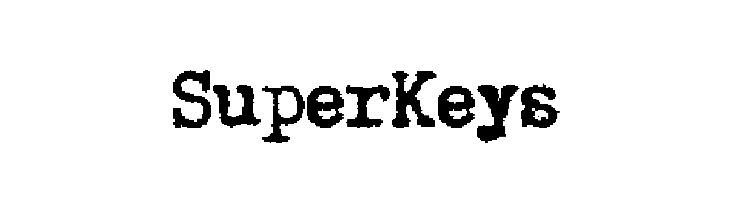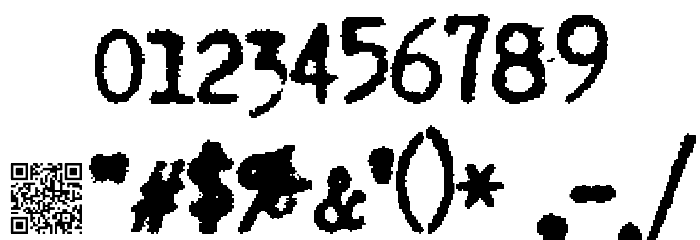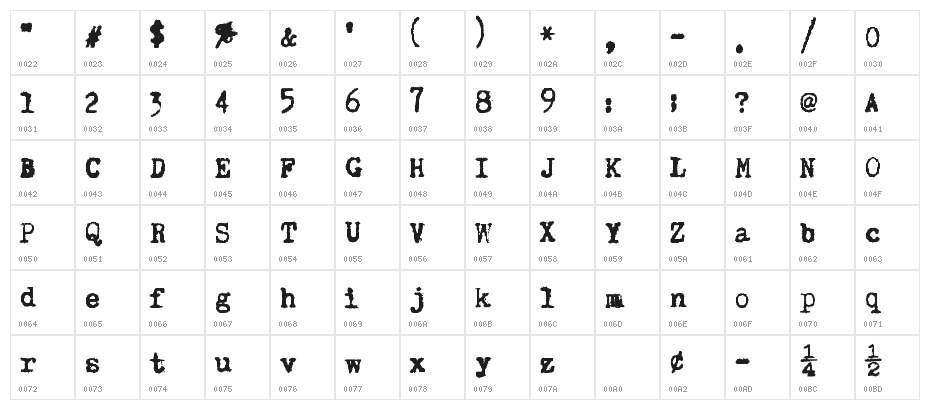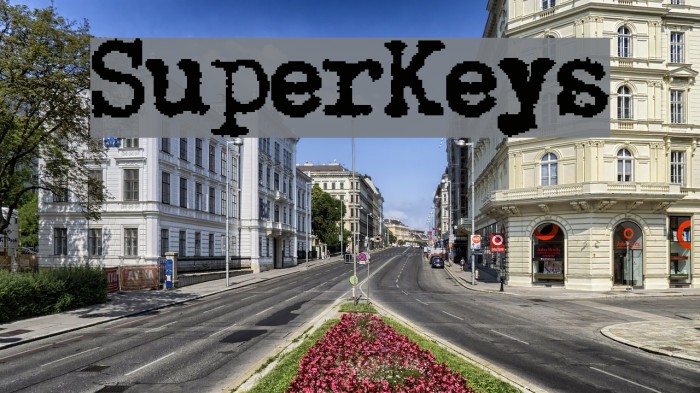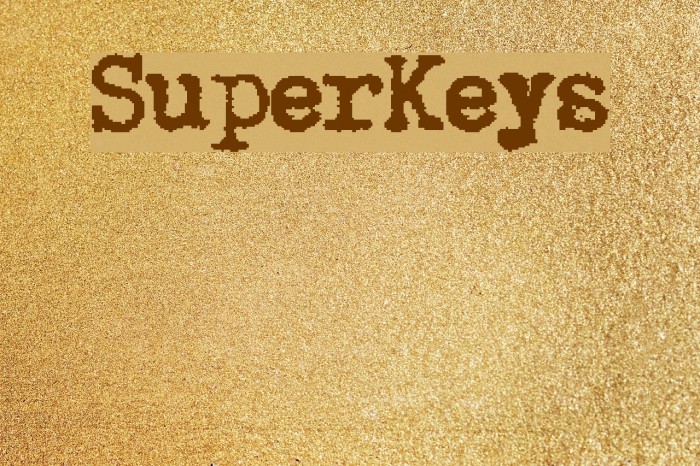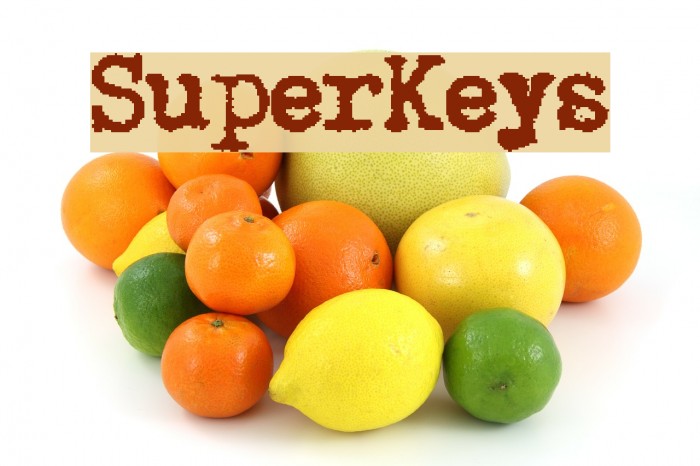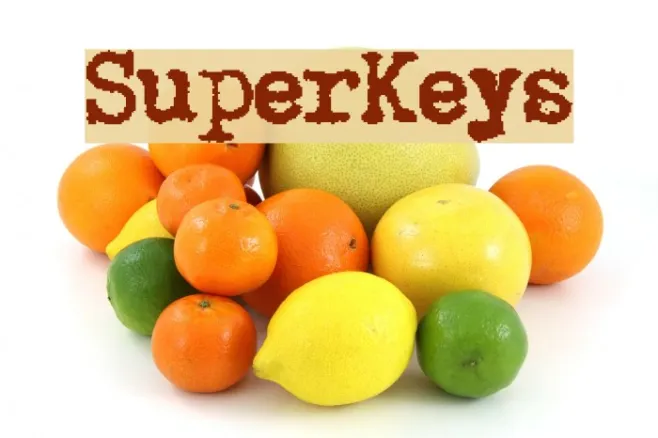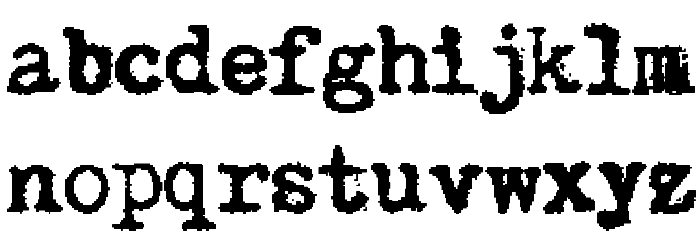
SuperKeys Font
SuperKeys Description
This font features a bold and rugged appearance with a distressed texture, giving it a vintage and worn-out look. The characters are serifed, with noticeable variations in stroke thickness that add to its rustic charm. The uppercase letters are prominent and commanding, while the lowercase letters maintain a consistent style. Numbers and special characters follow the same distressed pattern, making the font cohesive across different uses. Its unique style is reminiscent of old typewriter fonts or vintage print, ideal for projects that require a touch of nostalgia or a handcrafted feel.
| Proposed Projects | Ideal for vintage-themed posters, retro branding, book covers, and artistic projects that require a rustic or handcrafted aesthetic. |